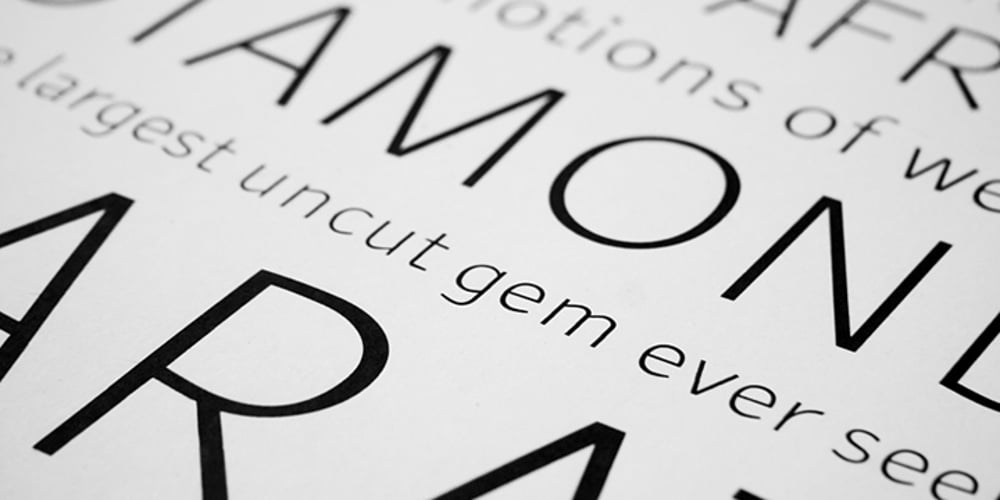
Arum Sans
Arum Sans font
Arum Sans Font Family was designed by Wayne Thompson and published by Australian Type Foundry. Arum Sans contains 10 styles and family package options. A humanist sans-serif family which displays subtle influences of the edged writing tool. Inspired by modern faces such as Chaparral and Enigma, Arum Sans is versatile enough to be used for high-end text setting as well as display purposes. A full international glyph set, extended for European use, allows Arum Sans to play on the field with the big boys.